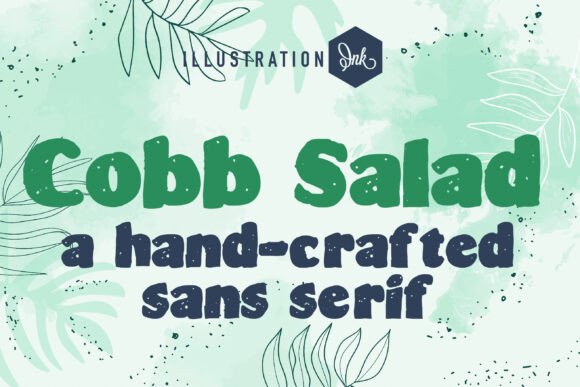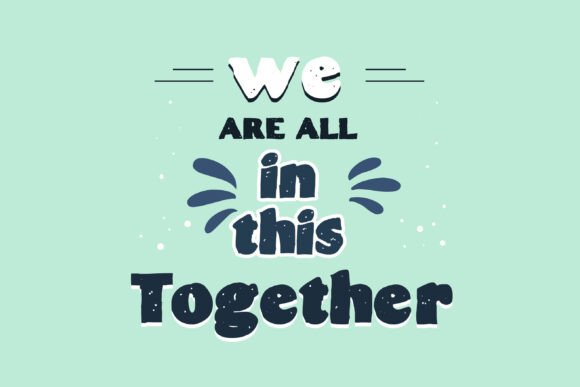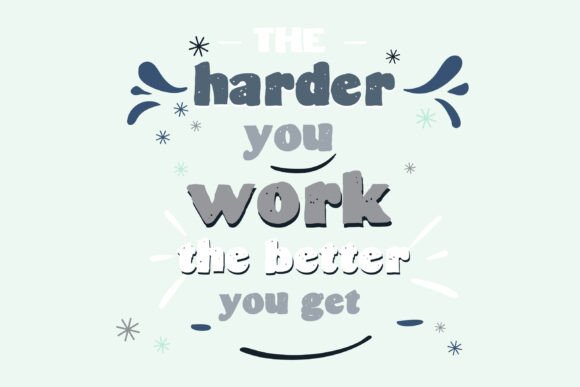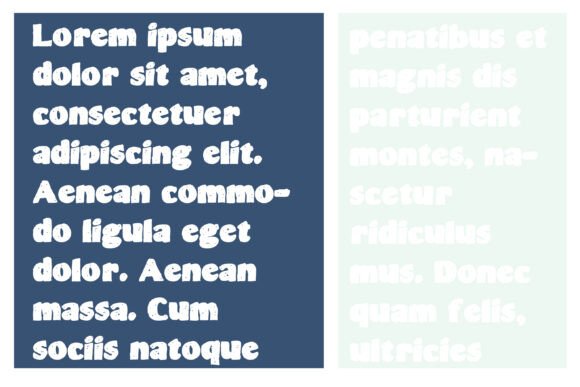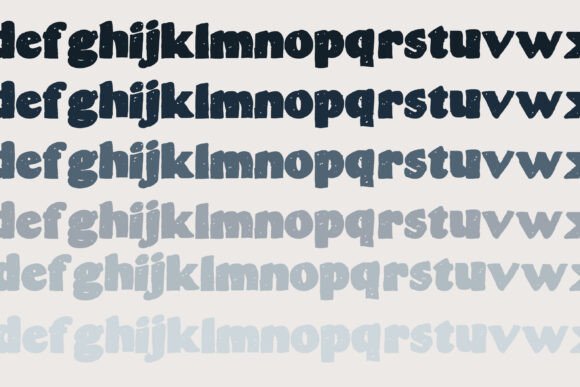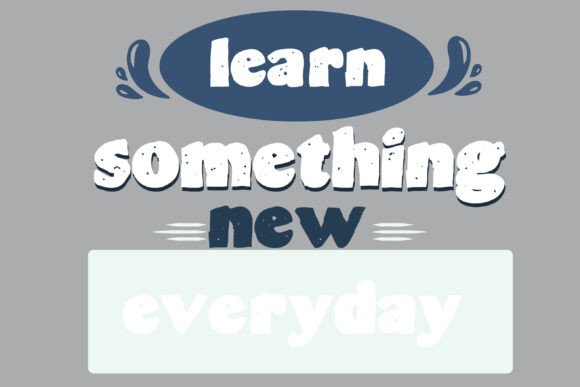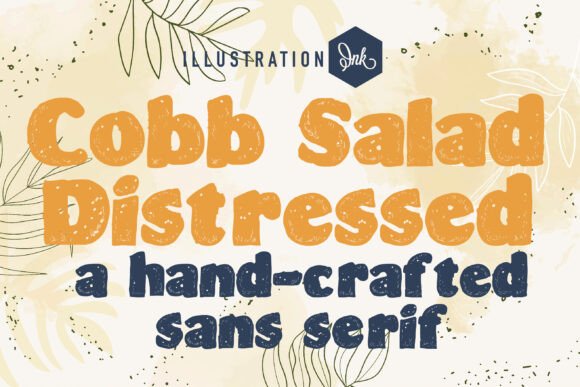
Cobb Salad Font: A Deliciously Hand-Crafted Typeface
Are you a designer or crafter looking for a unique and eye-catching font to add to your creative projects? Look no further than the Cobb Salad Font, a soft, rounded, and crafty typeface with a bit of grunge. This hand-crafted font is perfect for adding a personal touch to your designs, and its distressed version gives it an extra layer of character.
Characteristics of the Cobb Salad Font
The Cobb Salad Font is a unique and charming typeface that boasts several distinctive characteristics. Its soft, rounded edges give it a friendly and approachable feel, while its crafty and grungy texture adds a layer of depth and interest. The font is available in a regular version, as well as a distressed version, which features rough edges and imperfections that give it a more handmade look.
Uses for the Cobb Salad Font
The Cobb Salad Font is a versatile typeface that can be used for a wide range of creative projects. Here are a few ideas to get you started:
- Invitations and greeting cards: The Cobb Salad Font is perfect for creating personalized invitations and greeting cards for special occasions like weddings, birthdays, and holidays.
- Digital designs: Use the Cobb Salad Font to add a personal touch to your digital designs, such as social media graphics, blog posts, and email newsletters.
- Print materials: The font is also great for print materials like brochures, flyers, and posters.
- Crafting projects: If you’re a crafter, you can use the Cobb Salad Font to add a personal touch to your projects, such as handmade cards, scrapbook pages, and journal entries.
Hand-crafted fonts like the Cobb Salad Font offer several benefits for designers and crafters. Here are a few:
Tips for Using the Cobb Salad Font
Here are a few tips for using the Cobb Salad Font in your creative projects:
- Use it sparingly: While the Cobb Salad Font is beautiful, it can be a bit overwhelming if used too much. Use it sparingly to add emphasis and interest to your designs.
- Pair it with other fonts: The Cobb Salad Font pairs well with other fonts, such as serif and sans-serif fonts. Experiment with different pairings to find the one that works best for your design.
- Experiment with colors: The Cobb Salad Font looks great in a variety of colors, from bright and bold to soft and pastel. Experiment with different colors to find the one that works best for your design.
The Cobb Salad Font is a unique and charming hand-crafted typeface that is perfect for designers and crafters looking to add a personal touch to their creative projects. With its soft, rounded edges and crafty texture, this font is sure to add a touch of warmth and personality to any design. Whether you’re creating invitations, digital designs, or print materials, the Cobb Salad Font is a great choice.